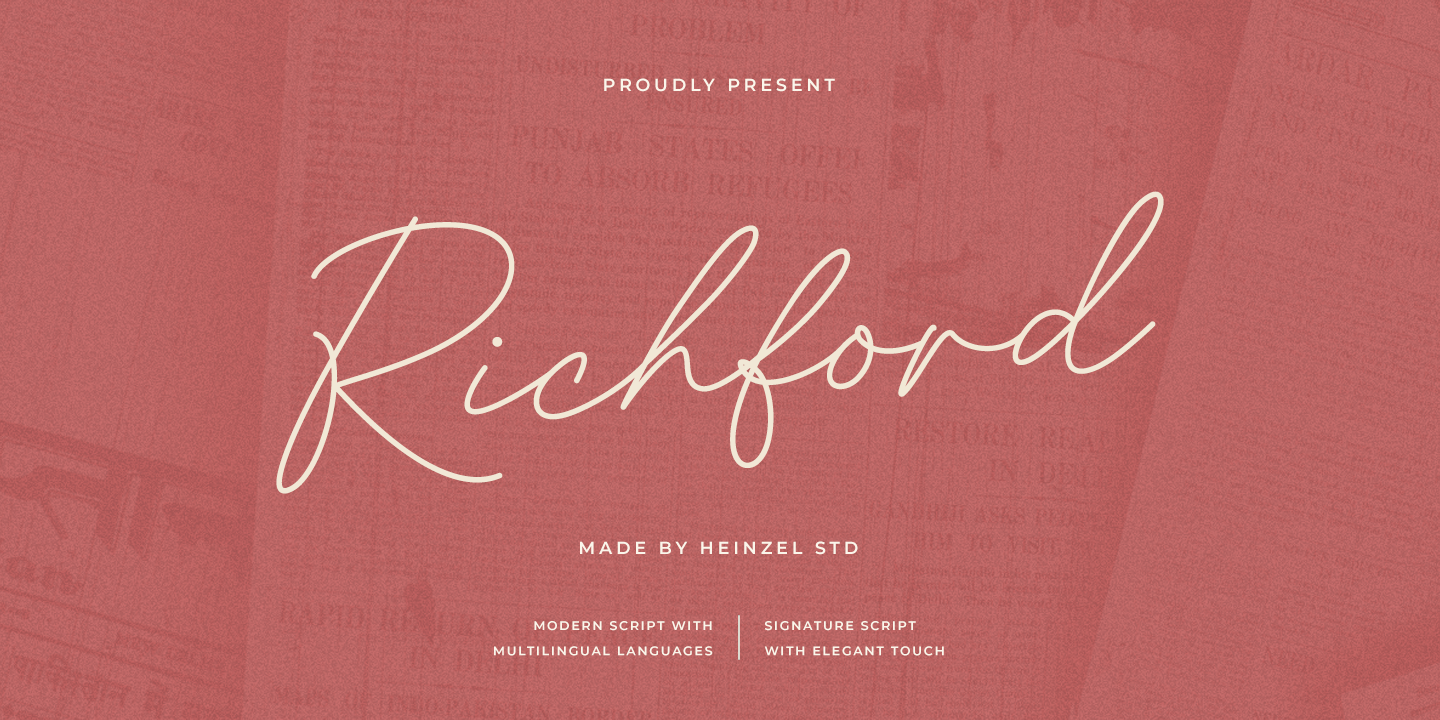
Richford Font is perfect for prestigious design projects including private banking materials, luxury real estate branding, upscale law firm communications, exclusive country club signage, premium investment portfolios, high-end hospitality brands, elite educational institutions, distinguished corporate headquarters, affluent lifestyle magazines, and sophisticated wealth management services that require authoritative typography with established credibility.
What makes Richford Font so exciting is its exceptional ability to convey tradition, wealth, and institutional authority while maintaining contemporary relevance and outstanding readability across all applications. This distinguished typeface features classic proportions, refined letterforms, and subtle design elements that communicate heritage, stability, and success, making it the ideal choice for organizations seeking to project established excellence and financial prosperity.
Richford Font typically includes comprehensive font families with regular, italic, bold, bold italic, light, and semibold weights, along with small caps, old-style numerals, and extensive language support, providing designers with complete typographic tools to create sophisticated hierarchies and maintain consistent brand prestige across all communications.
This prestigious Richford Font Free Download offers creative professionals an exceptional foundation for projects requiring established authority and financial credibility. Whether you're developing wealth management branding, luxury service materials, or institutional communications, this font delivers unmatched sophistication while ensuring clear, professional presentation. The classic design characteristics and versatile weight options make it particularly valuable for financial institutions, luxury service providers, and established organizations seeking to communicate prosperity, tradition, and institutional excellence through typography that resonates with affluent audiences and conveys lasting stability in competitive premium markets.